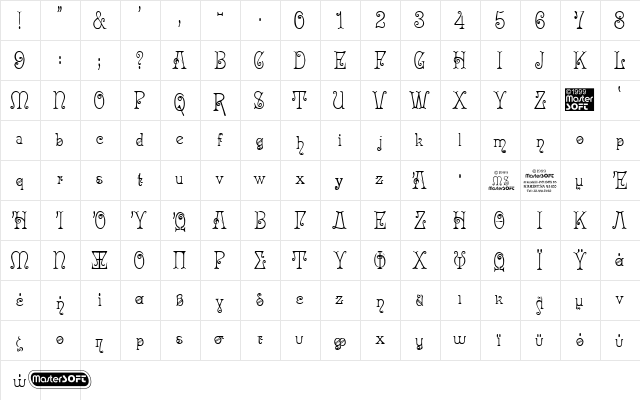
MSAcadian Regular
Design Context for MSAcadian Typeface
MSAcadian is a composed and adaptable typeface that performs quietly and consistently across a wide range of design contexts.